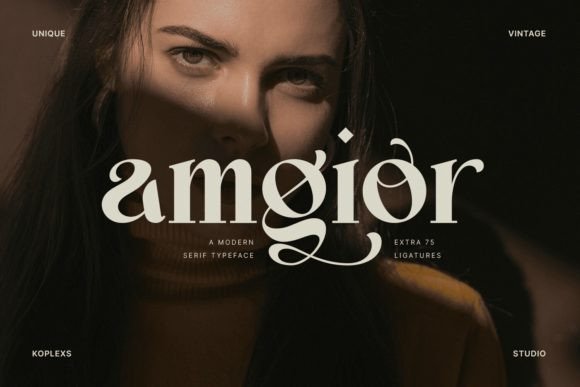
The Font that Stole My Heart: Amgior
I still remember the design project that led me to discover Amgior. I was working on a branding project for a luxury fashion client, and I was struggling to find the perfect font. The client wanted something elegant, modern, and easy to read. I tried countless fonts, but none seemed to fit the bill. That was until I stumbled upon Amgior. Its high-contrast glyphs and unique ligature immediately caught my attention. I knew I had found the one! 💕
• ✨ Elegant and modern design with high-contrast glyphs
• ✅ Multipurpose font perfect for various projects
• 💃 Feminine and masculine qualities that work well for different brands
• 📚 Easy to read, even at small sizes
• 🎨 Unique ligature that adds a pop of color to designs
While Amgior is an amazing font, it’s not perfect. Here are a few things to keep in mind:
• 🤔 Some users may find the font a bit too ornate for certain projects
• ⚠️ Limited availability of certain OpenType features in certain software
The Designer Inspiration Behind Amgior
Amgior was designed with the goal of creating a modern and elegant font that could be used for a wide range of projects. The designer wanted to create a font that was both feminine and masculine, with a unique ligature that would add a pop of color to designs. The result is a font that’s perfect for luxury branding, fashion, and high-end advertising.
Q: What is Amgior?
A: Amgior is a modern serif font that’s perfect for a wide range of design projects. It features high-contrast glyphs, a unique ligature, and OpenType features that make it easy to use and customize.
Q: Is Amgior suitable for body copy?
A: Yes, Amgior is a highly legible font that’s perfect for body copy. However, it’s also great for headings and titles, making it a versatile font for various design projects.